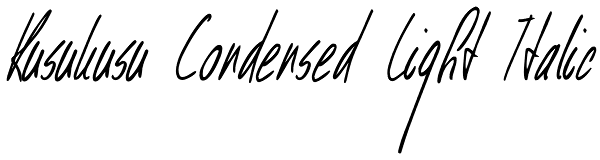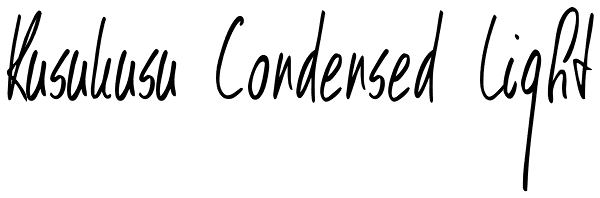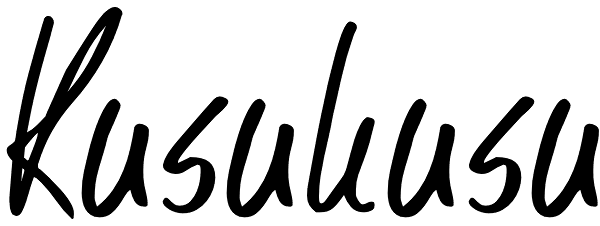
Kusukusu
Kusukusu means 'chuckle' or 'giggle' in Japanese. It is a feminine, hand written font with a happy feel to it. Kusukusu comes in different styles, has all the diacritics you need and has been kerned by hand.